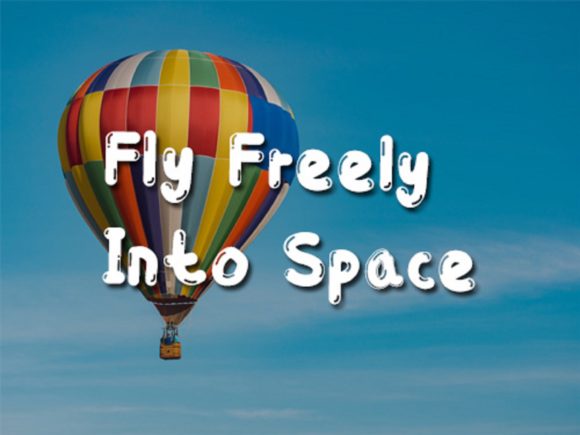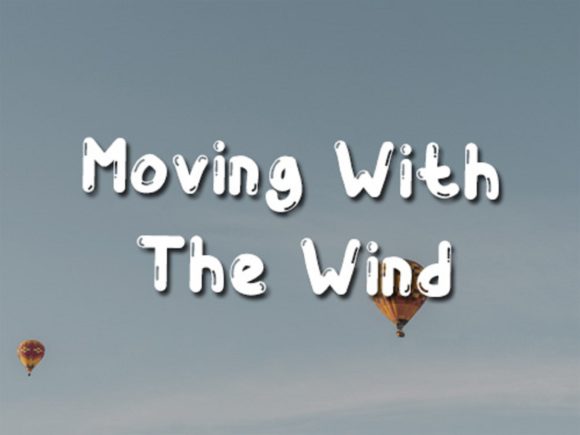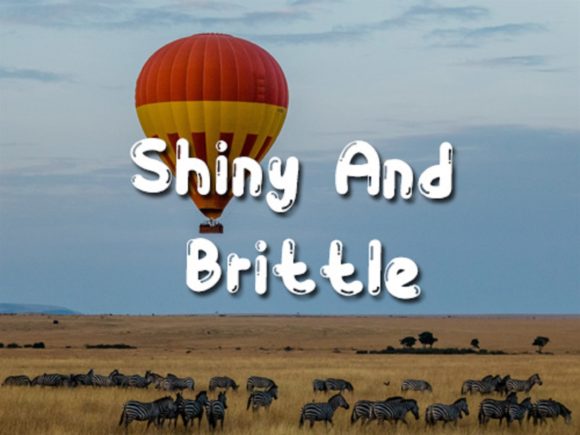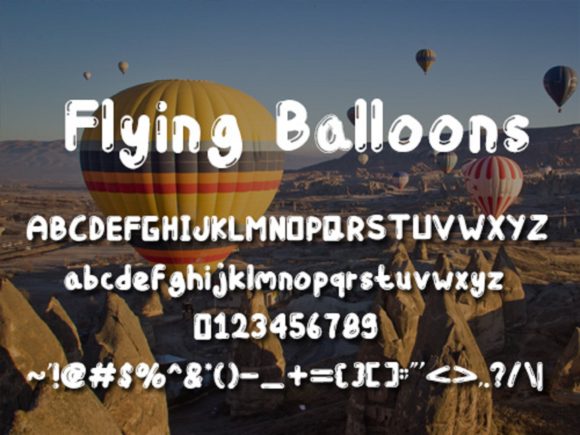
Flying Balloons Font: Elevate Your Designs with a Cute and Bubbly Display Font
Are you tired of using the same old fonts in your designs? Look no further than the Flying Balloons Font, a sweet and lively display font that’s sure to brighten up your creations. With its bubbly and playful style, this font is perfect for designers and crafters looking to add a touch of whimsy to their work.
What is Flying Balloons Font?
Flying Balloons Font is a unique and eye-catching display font that’s designed to make a statement. Its cute and bubbly style is reminiscent of childhood memories of flying balloons, making it a perfect fit for designs that require a playful and carefree touch.
Key Features of Flying Balloons Font
- Cute and Bubbly Style: The Flying Balloons Font has a sweet and lively style that’s sure to capture the attention of your audience.
- Display Font: This font is designed specifically for display purposes, making it perfect for headlines, titles, and other prominent text elements.
- Easy to Read: Despite its playful style, the Flying Balloons Font is easy to read, making it a great choice for designs that require a clear and concise message.
- Versatile: This font can be used in a variety of design contexts, from children’s party invitations to social media graphics and more.
Why Choose Flying Balloons Font?
So why choose the Flying Balloons Font for your designs? Here are just a few reasons:
- Adds a Touch of Whimsy: The Flying Balloons Font adds a playful and carefree touch to your designs, making them stand out from the crowd.
- Perfect for Kids’ Designs: The cute and bubbly style of this font makes it a perfect fit for designs aimed at children, such as party invitations, children’s books, and more.
- Great for Social Media Graphics: The Flying Balloons Font is also great for social media graphics, where it can help grab the attention of your followers and make your content more engaging.
How to Use Flying Balloons Font
Using the Flying Balloons Font in your designs is easy. Here are a few tips to get you started:
- Pair with Other Fonts: Pair the Flying Balloons Font with other fonts to create a unique and visually appealing combination.
- Use for Headlines and Titles: Use the Flying Balloons Font for headlines and titles to add a touch of whimsy and make your content more engaging.
- Experiment with Colors: Experiment with different colors to find the perfect combination that matches your brand’s style and personality.
In conclusion, the Flying Balloons Font is a cute and bubbly display font that’s perfect for designers and crafters looking to add a touch of whimsy to their work. With its sweet and lively style, this font is sure to brighten up your designs and make them stand out from the crowd. So why not give it a try and see how it can elevate your designs?